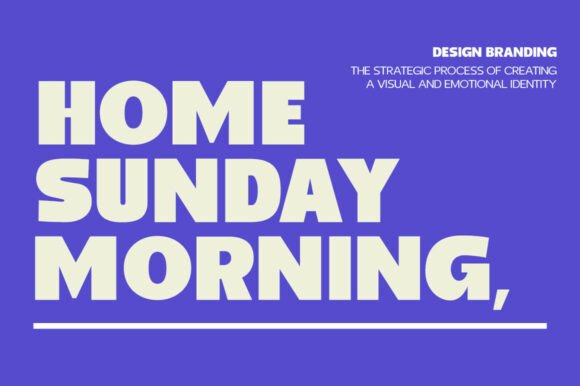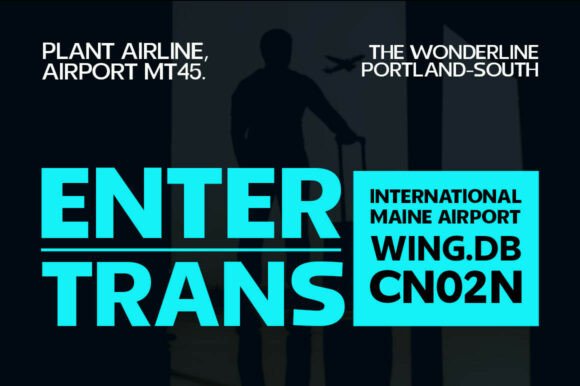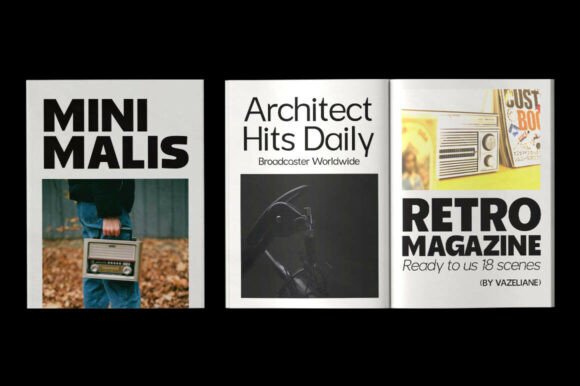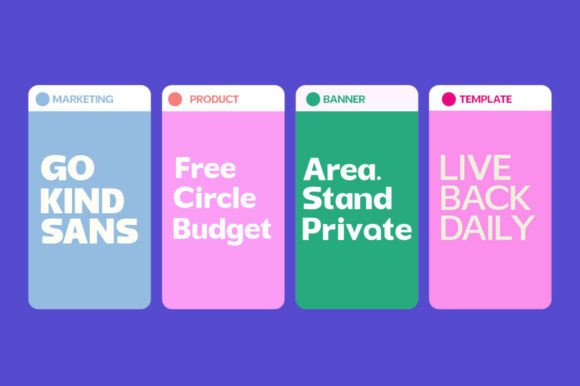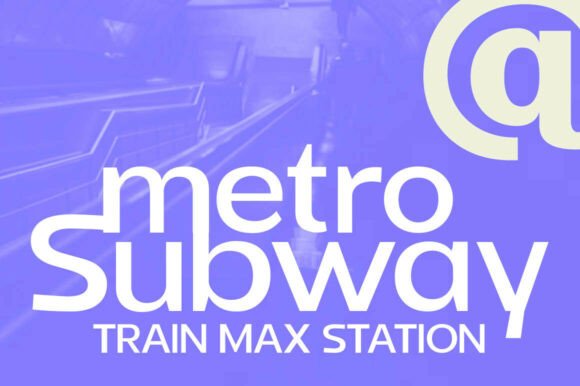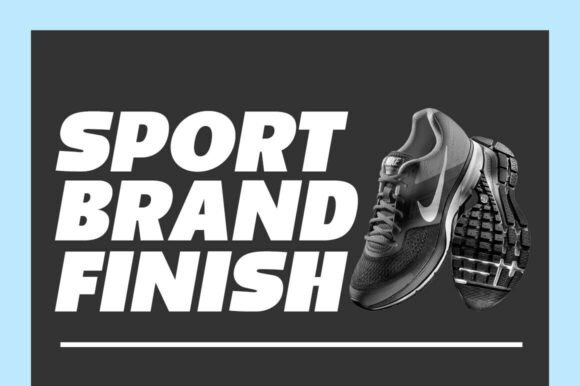
Introducing Benota Font: The Ultimate Geometric Sans Serif Solution for Designers
In the world of typography, a font can make or break a design. That’s why we’re excited to introduce Benota Font, a skillful and authentic geometric sans serif font family that’s taking the design world by storm. With its harmonious weights and slants, and fourteen complete letterforms, Benota is the perfect solution for designers and crafters looking for a versatile and reliable font.
What Makes Benota Font So Special?
Benota Font boasts a minimalist design, low contrast, large x-height, and a thin black weight with additional ligature letters. This makes it perfect for use as a primary text and display font for a wide range of applications, including branding, advertising, packaging, headlines, magazines, websites, logo design, and more. Whether you’re working on a corporate identity project or a personal craft, Benota Font is the perfect choice.
Key Features of Benota Font
- Geometric Sans Serif Design: Benota Font features a clean and modern geometric sans serif design that’s perfect for creating a professional and sleek look.
- Harmonious Weights and Slants: With fourteen complete letterforms, each offering something different with its own dynamic weight, Benota Font is designed to work harmoniously together.
- Thin Black Weight with Ligature Letters: The thin black weight and additional ligature letters make Benota Font perfect for creating elegant and sophisticated designs.
Why Choose Benota Font?
Benota Font is the result of hard work and dedication to creating a font that’s as easy and comfortable to use as possible. With its versatility and reliability, Benota Font is perfect for designers and crafters who want to create stunning designs without the hassle of complicated fonts. Whether you’re a seasoned designer or just starting out, Benota Font is the perfect choice for any project.
Applications of Benota Font
Benota Font is perfect for a wide range of applications, including:
- Branding: Create a professional and sleek brand identity with Benota Font.
- Advertising: Use Benota Font to create eye-catching ads that grab attention.
- Packaging: Add a touch of elegance to your packaging with Benota Font.
- Headlines: Create stunning headlines with Benota Font’s bold and geometric design.
- Magazines: Use Benota Font to create a clean and modern look for your magazine.
- Websites: Add a professional touch to your website with Benota Font.
- Logo Design: Create a unique and memorable logo with Benota Font.